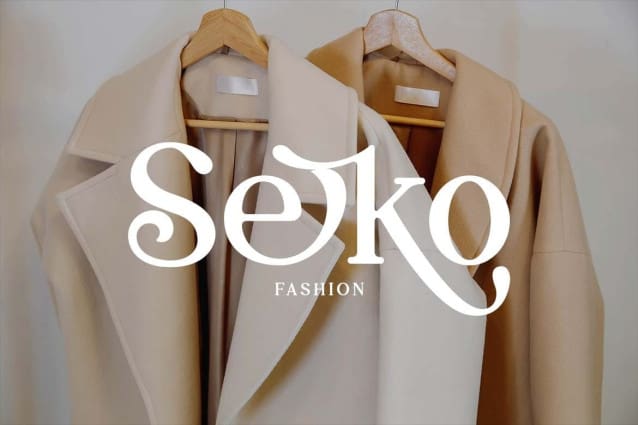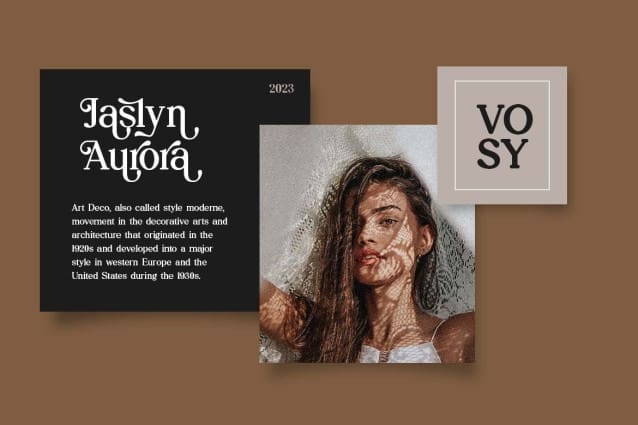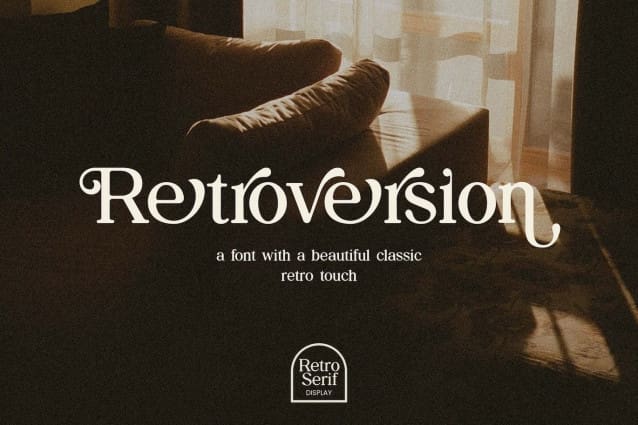
Retroversion Font
Retroversion Font – Classic Retro Serif Font that feels beautiful classy, elegant, and modern. This font is perfectly suited for a wide variety of projects, such as signature, stationery, logo, wedding, typography quotes, magazine or book covers, website headers, branding, packaging design, and more. Also, fashion-related branding or editorial design displays both masculine and feminine qualities.